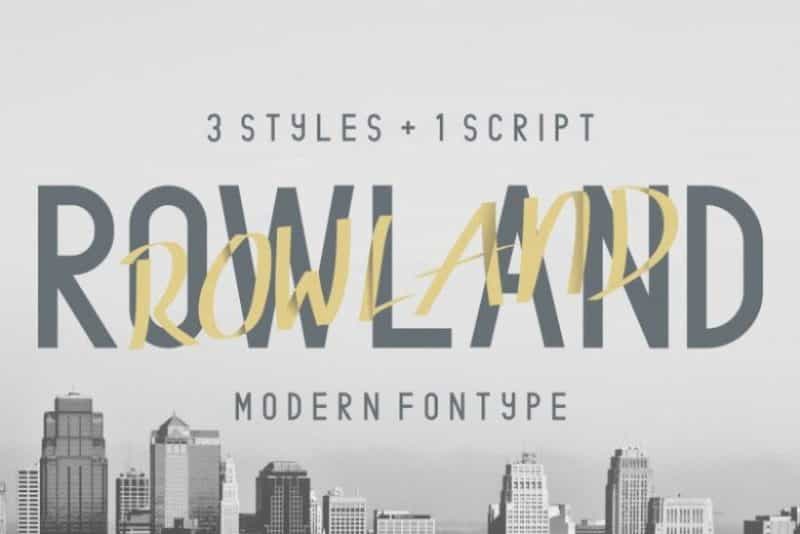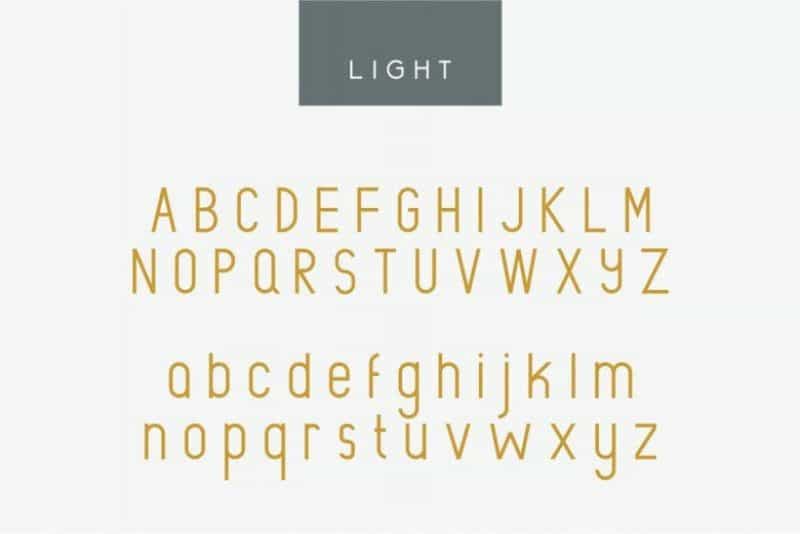
Discover Rowland Typeface, part of the Sans Serif collection—a versatile and unique font perfect for adding a personal touch to your projects. Download it for free and enjoy crafting designs with style, from invitations to social media posts. This font is available exclusively for personal use, giving you the freedom to create without limits. Unlock your creativity with Rowland Typeface today!
Hi Guys! It’s us again, please meet our newest font : Rowland Typeface! This is FOUR fonts combined into ONE. Yes, it has 4 fonts family : Sans, Calligraphy, Bold and Light Sans. It features a modern script handwriting Calligraphy with three styles of SANS font and it has a special and stylish glyph.